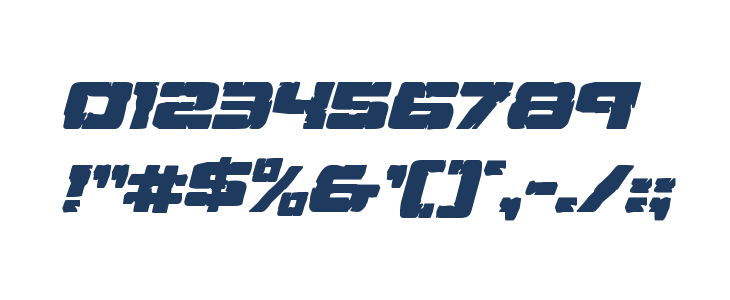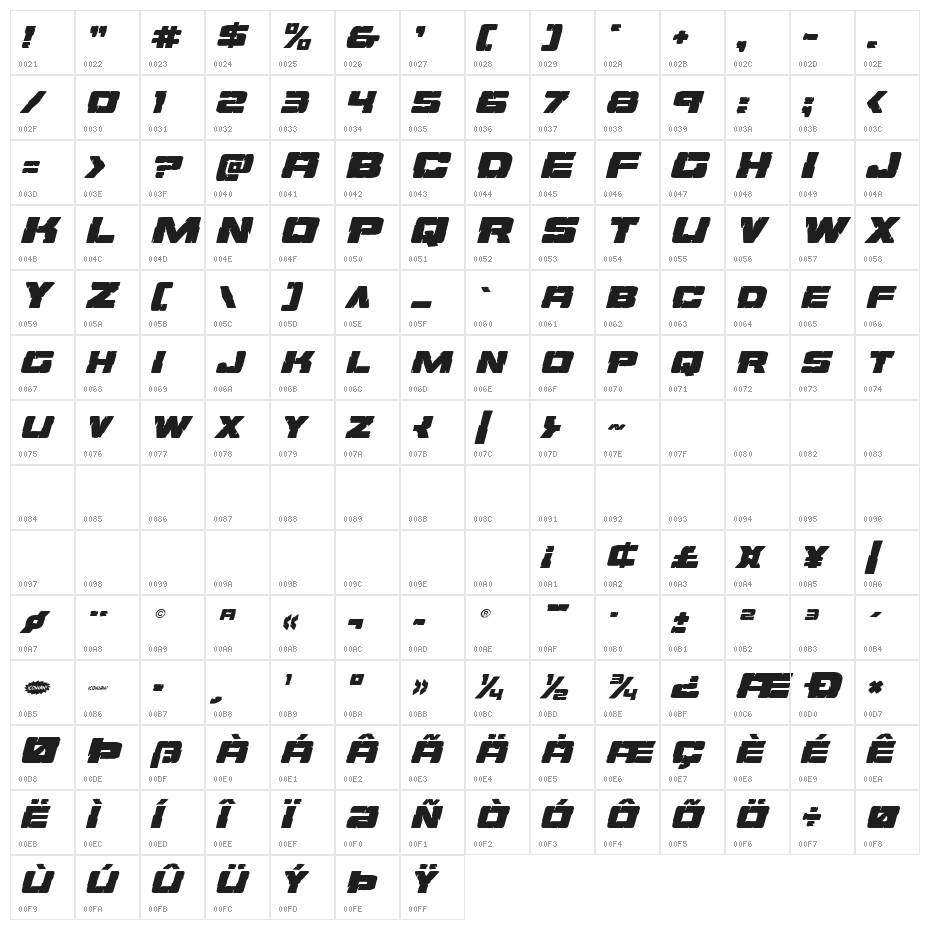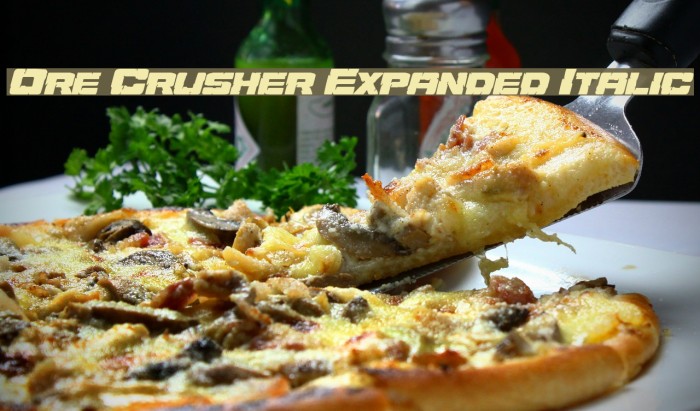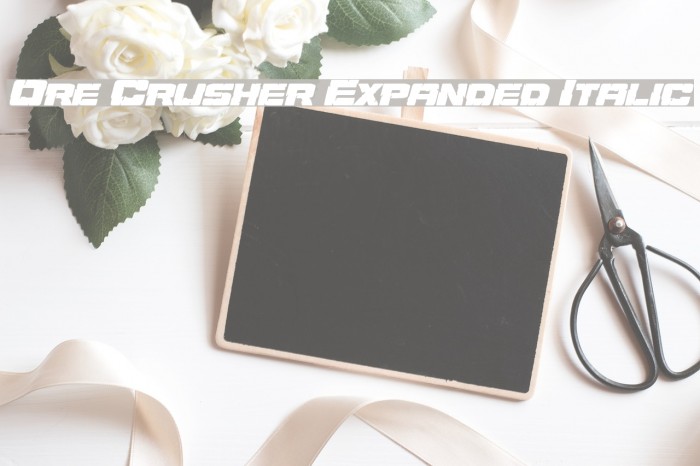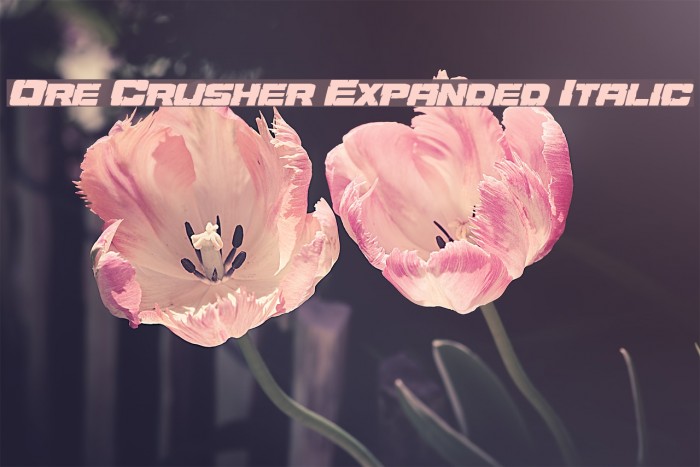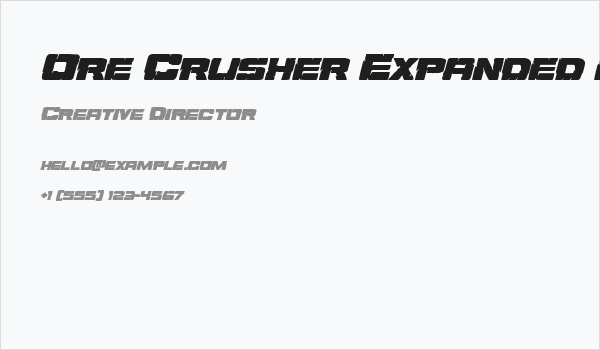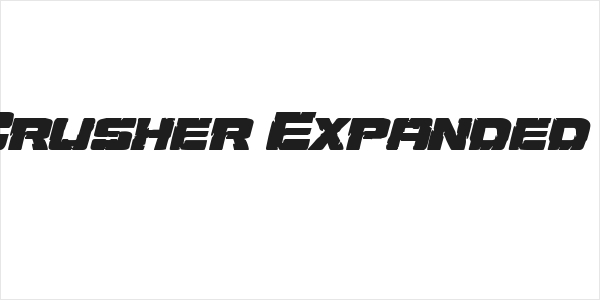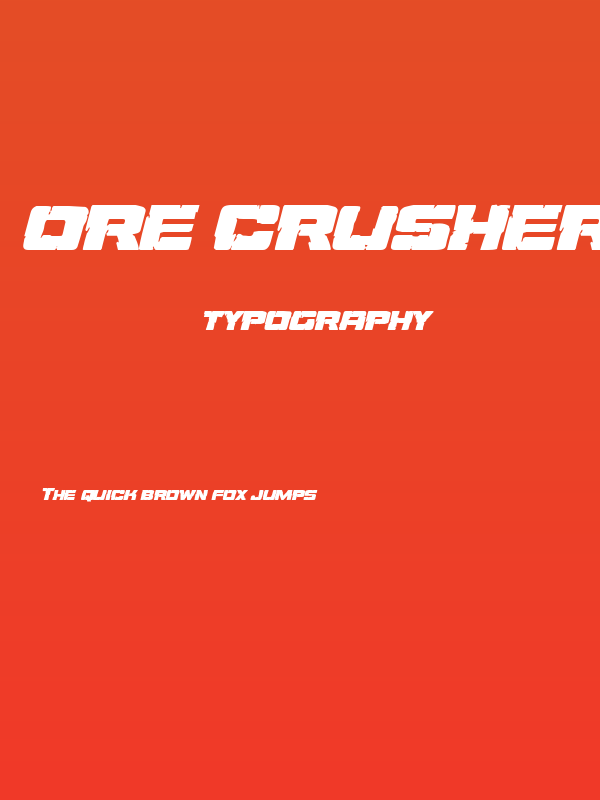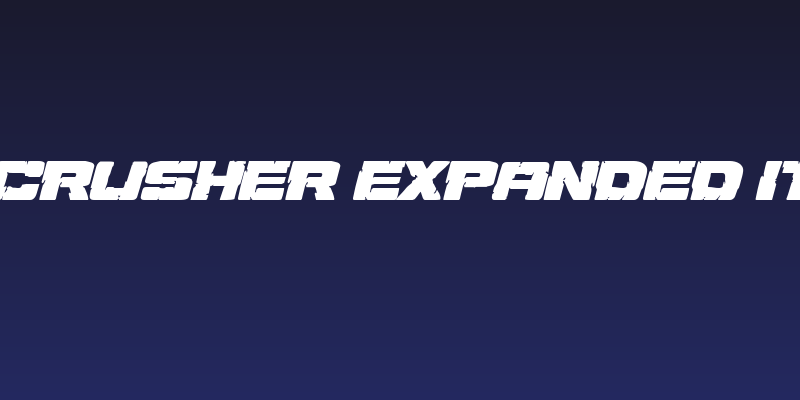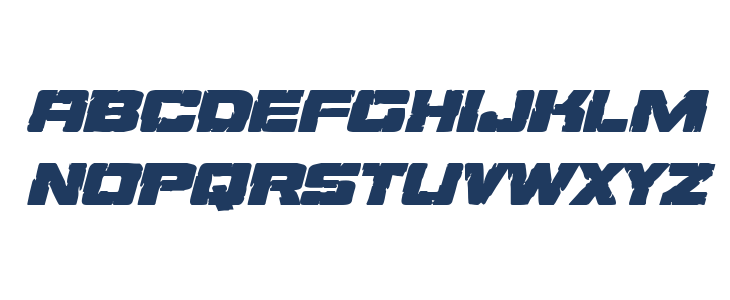
Ore Crusher Expanded Italic Font
Ore Crusher Expanded Italic Description
This font features a bold and dynamic style with an expanded and italicized form. The characters are robust and convey a sense of strength and movement, making it ideal for impactful designs. The angular cuts and sharp edges give it a modern and industrial feel, suitable for projects that require a strong visual presence. The uppercase letters are particularly striking, while the numbers and special characters maintain the same bold aesthetic, ensuring consistency across different uses.